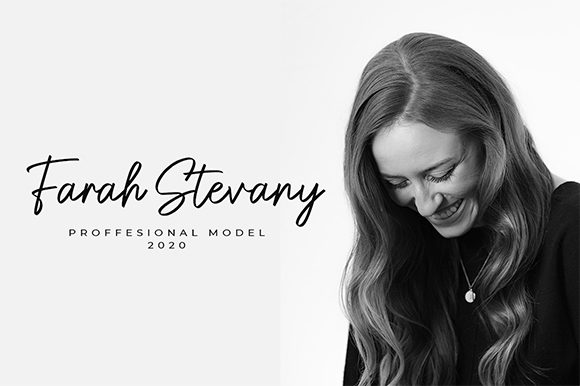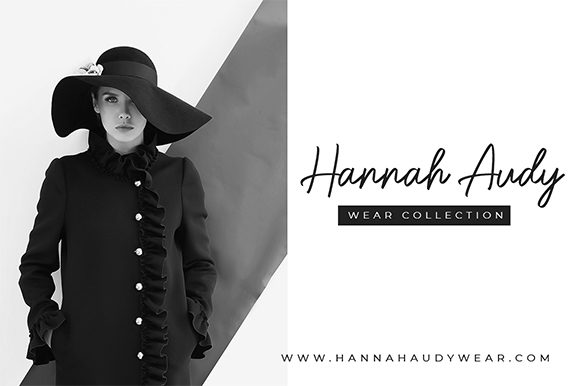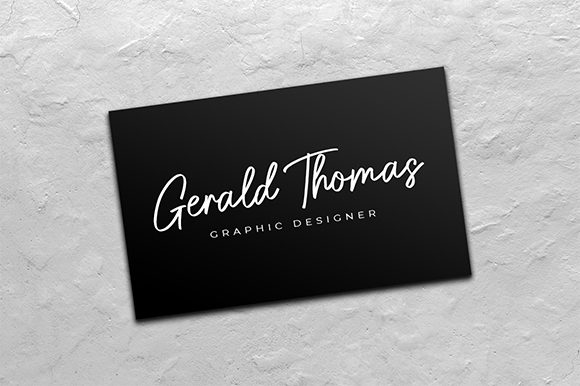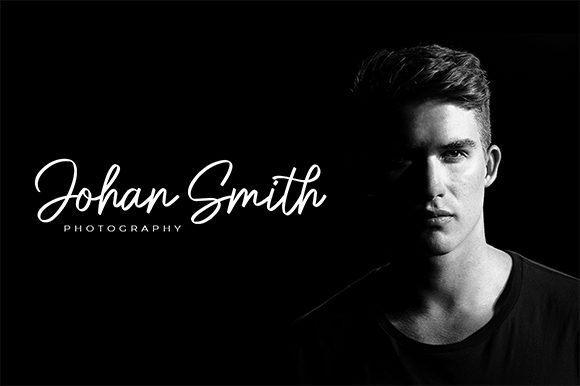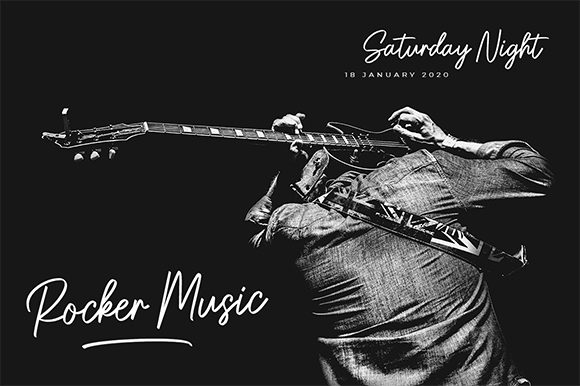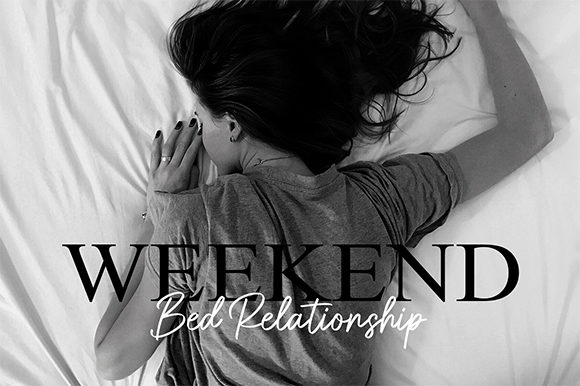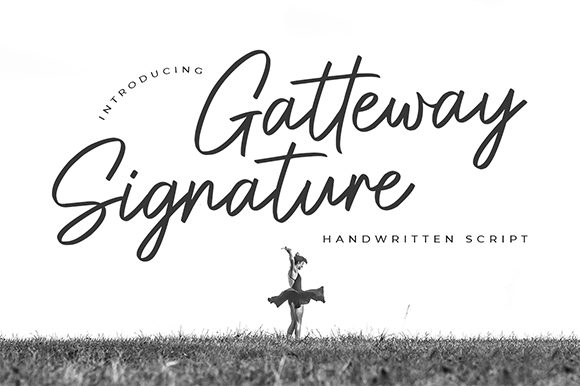
Gatteway Font: Elevate Your Designs with a Bold and Stunning Signature Font
Are you tired of using the same old fonts in your designs? Look no further than Gatteway Font, a bold and stunning signature font that’s sure to make your designs stand out. With its unique and eye-catching style, Gatteway Font is perfect for designers and crafters who want to add a touch of personality to their work.
What is Gatteway Font?
Gatteway Font is a carefully crafted font that exudes confidence and style. Its bold vibe is perfect for making a statement, and its signature style adds a touch of sophistication to any design. Whether you’re working on a logo, a poster, or a social media graphic, Gatteway Font is sure to turn your design idea into a true standout.
Key Features of Gatteway Font
- Bold and Stunning: Gatteway Font is designed to make a statement. Its bold and stunning style is perfect for designers who want to add a touch of drama to their work.
- Signature Style: Gatteway Font has a unique signature style that’s perfect for adding a touch of personality to your designs.
- Highly Versatile: Gatteway Font can be used in a variety of design projects, from logos and posters to social media graphics and more.
- Easily Readable: Despite its bold style, Gatteway Font is highly readable, making it perfect for use in a variety of design applications.
How to Use Gatteway Font in Your Designs
Using Gatteway Font in your designs is easy. Here are a few tips to get you started:
- Pair it with a Simple Background: Gatteway Font is bold and eye-catching, so it’s best to pair it with a simple background that won’t compete with the font.
- Use it as a Statement Piece: Gatteway Font is perfect for use as a statement piece in your designs. Use it to draw attention to a particular element or to add emphasis to your message.
- Experiment with Different Colors: Gatteway Font looks great in a variety of colors, so don’t be afraid to experiment and find the perfect color for your design.
Benefits of Using Gatteway Font
There are many benefits to using Gatteway Font in your designs. Here are a few:
- Stand out from the Crowd: Gatteway Font is a unique and eye-catching font that’s sure to make your designs stand out from the crowd.
- Add a Touch of Personality: Gatteway Font has a bold and stunning style that’s perfect for adding a touch of personality to your designs.
- Increase Readability: Despite its bold style, Gatteway Font is highly readable, making it perfect for use in a variety of design applications.
Who is Gatteway Font for?
Gatteway Font is perfect for designers and crafters who want to add a touch of personality to their work. Here are a few examples of who might benefit from using Gatteway Font:
- Graphic Designers: Gatteway Font is perfect for graphic designers who want to add a touch of drama to their designs.
- Crafters: Gatteway Font is perfect for crafters who want to add a personal touch to their handmade projects.
- Social Media Managers: Gatteway Font is perfect for social media managers who want to create eye-catching graphics that will stand out on social media.
Gatteway Font is a stunning signature font with a bold vibe that’s sure to turn any design idea into a true standout. With its unique and eye-catching style, Gatteway Font is perfect for designers and crafters who want to add a touch of personality to their work. Whether you’re working on a logo, a poster, or a social media graphic, Gatteway Font is sure to make your designs stand out from the crowd.